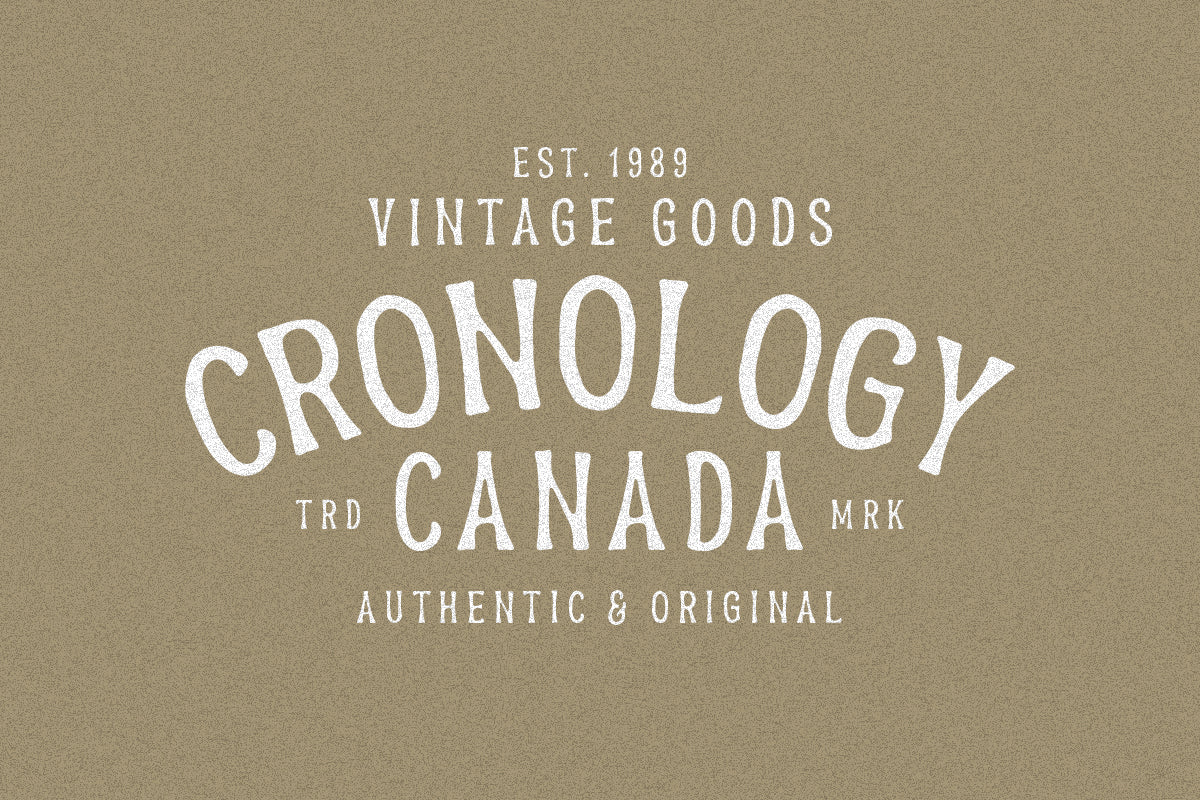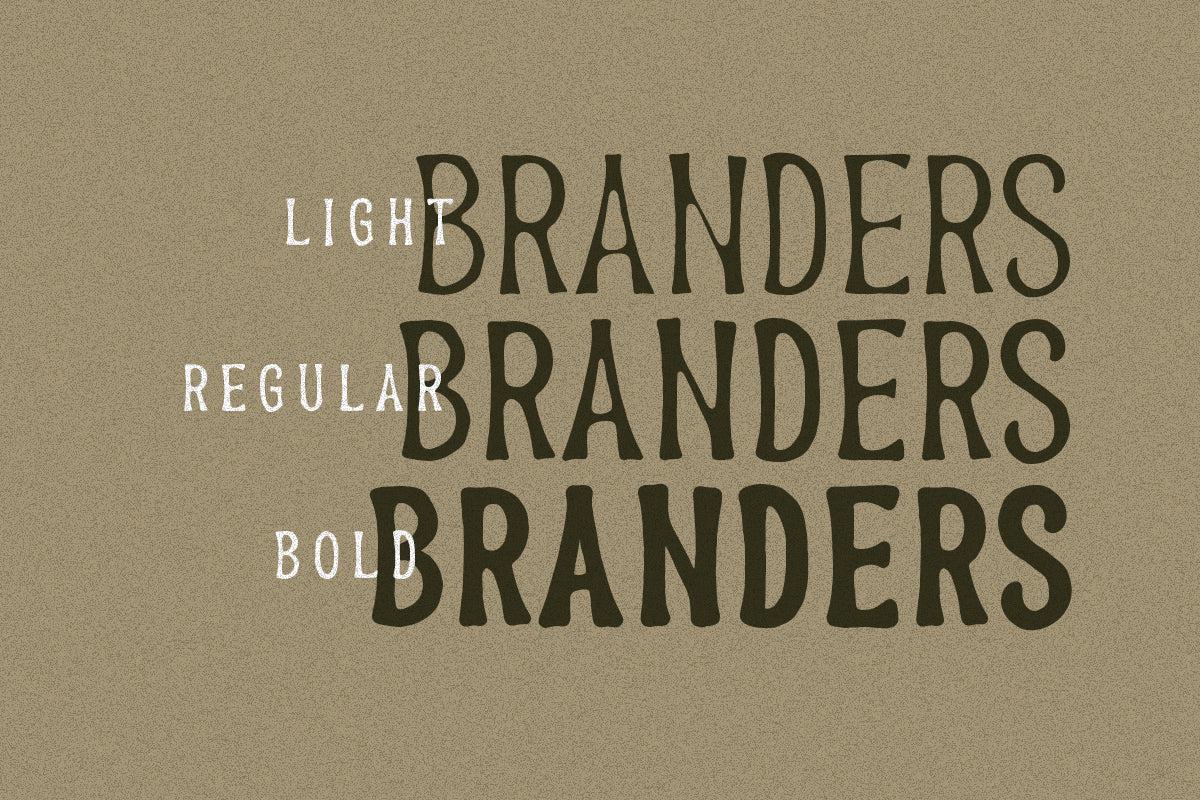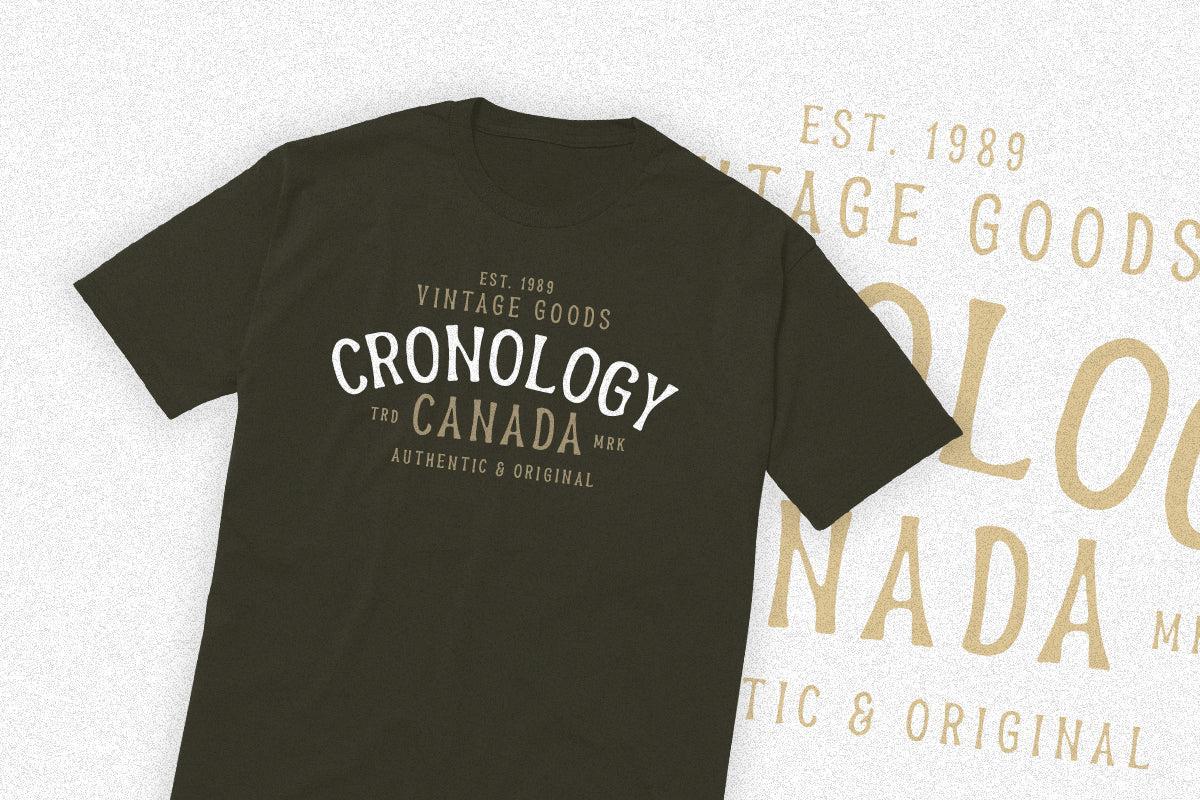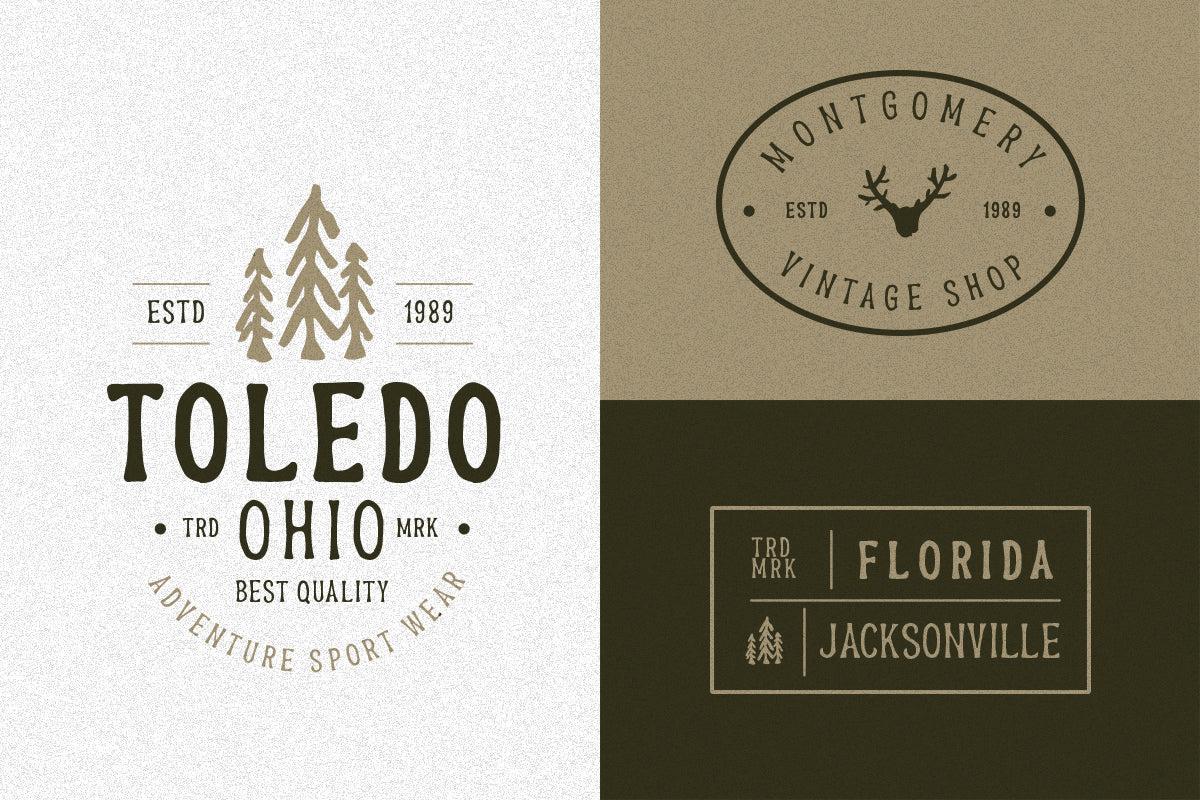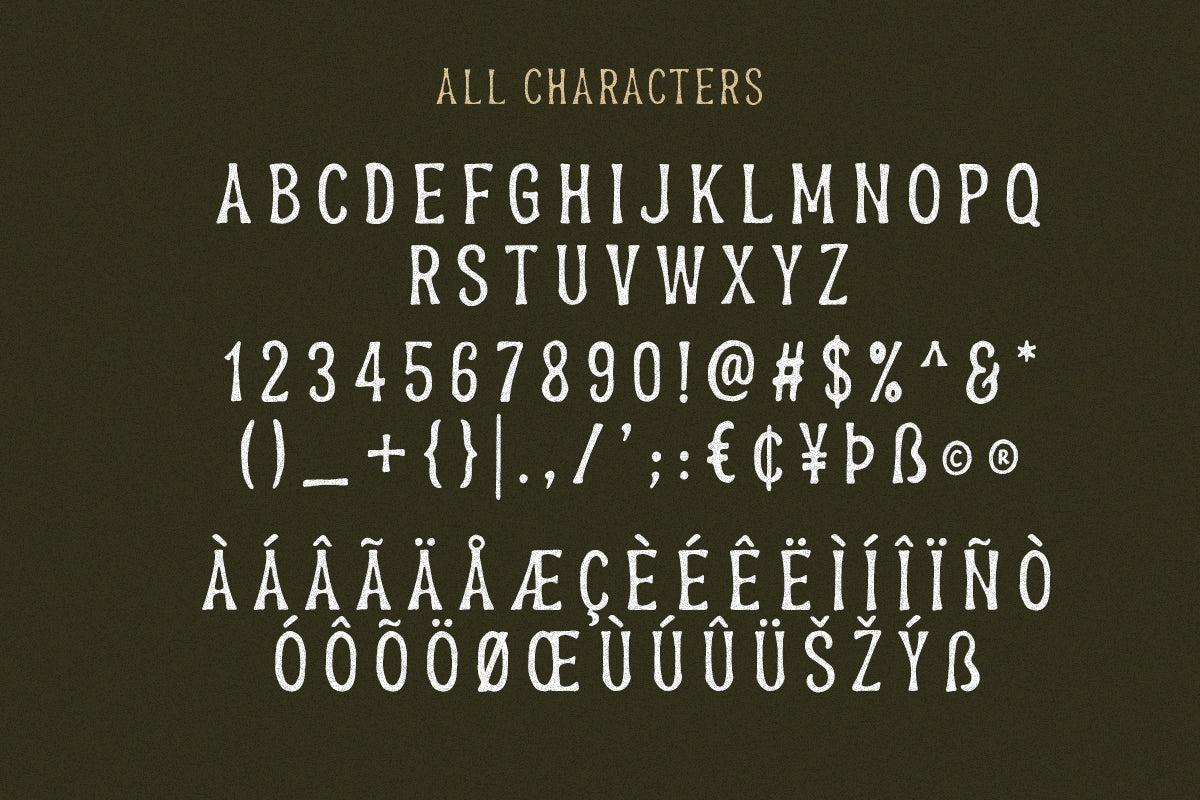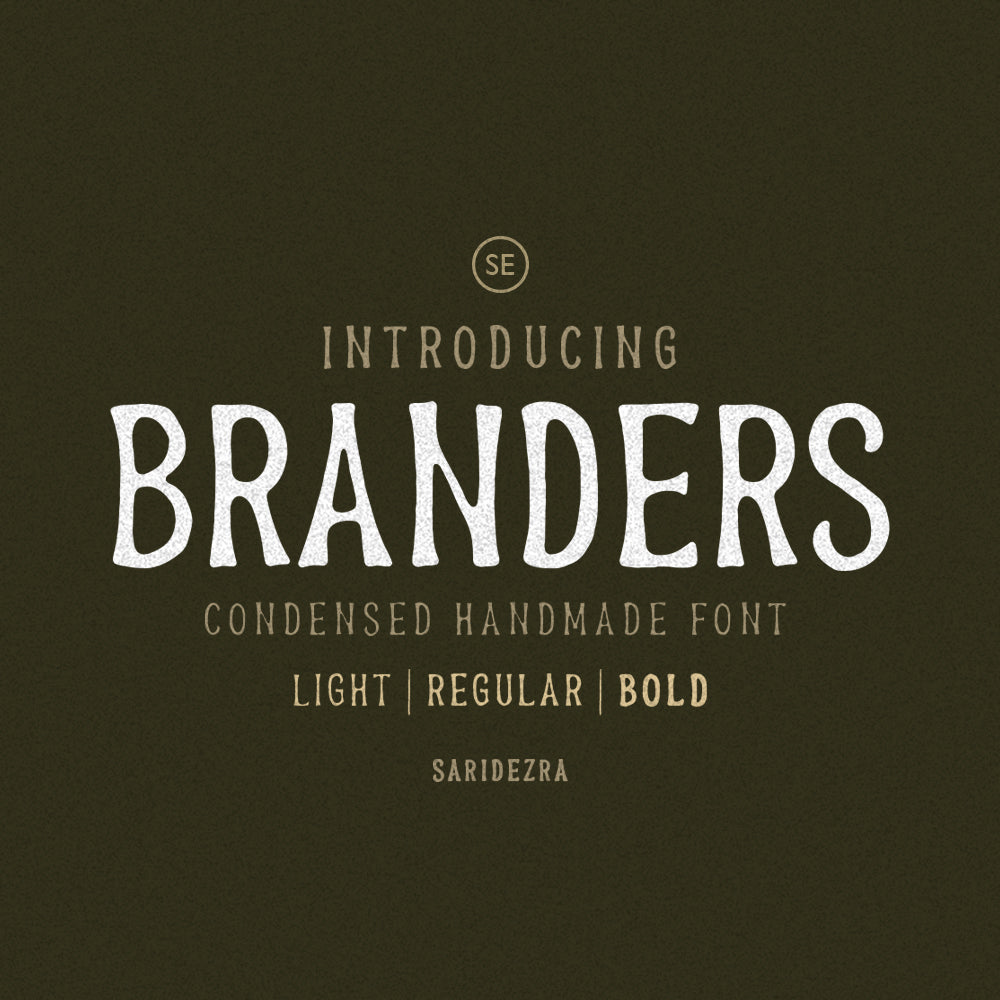
Branders - Condensed Handmade Font
Branders is a condensed handmade font family that includes light, regular, and bold styles. It supports multiple languages and is designed for various design applications, providing an authentic handmade appearance.